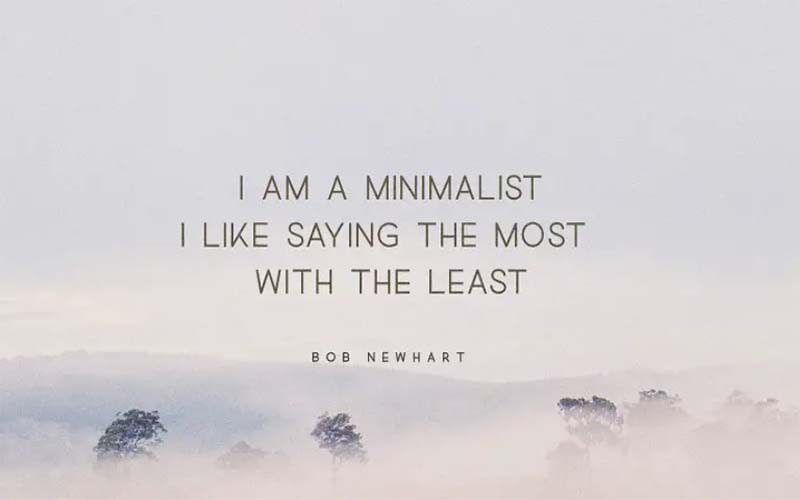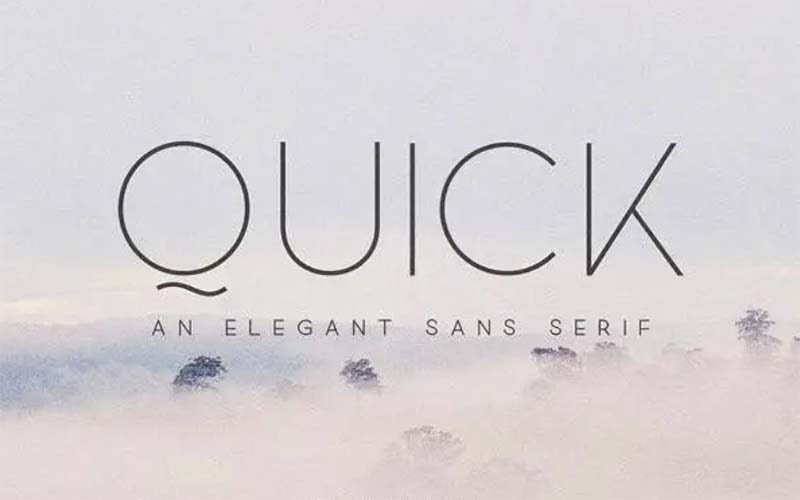
Quick Font is an excellent sans serif typeface most ideal for a paragraph or any longer textual design arrangements. This typeface is available in a single regular style.
Muhammad Husni Haikal took charge of creating and releasing it for the first time. It has originality, a charming layout & versatile texture. because of this, it has become much more popular.
Moreover, you can use this elegant font for creating logos, name cards, magazine layouts, invitation cards, headers, large-scale artwork, and many more.
This font includes uppercase and lowercase letters, punctuation marks, numerals, ligatures, and some special characters as well. Examine the letters map images we’ve included to see how Quick Font can help you the perfect texture.
Quick Font
| Font Name: | Quick Font |
| Style: | Sans serif Typeface |
| Font Designer: | Graphicfresh |